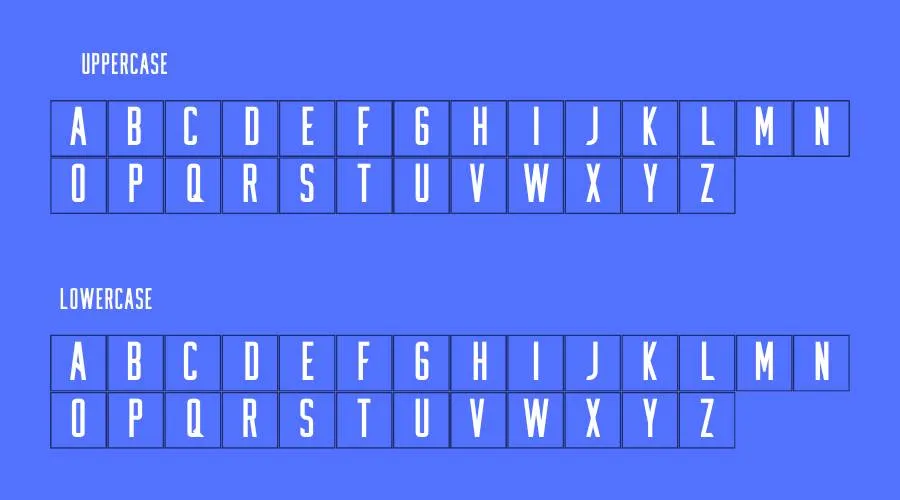
About Lakers Font
Lakers Font represents a sophisticated approach to type design, balancing tapered strokes with professional finish. Perfect for marketing materials, this font family showcases impressive consistency and ceremonial suitability throughout its character set. Designers appreciate its versatility and reliability.
Designers will appreciate nuanced touches including tapered strokes and ordinals, adding sophistication to any project. These features become apparent in technical diagrams, where language switching matters most. The careful treatment of character width and technical innovation ensures optimal performance.